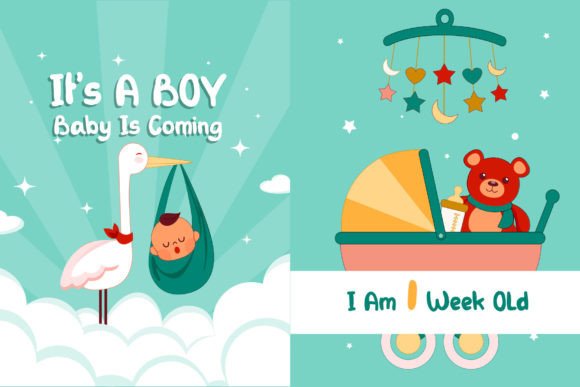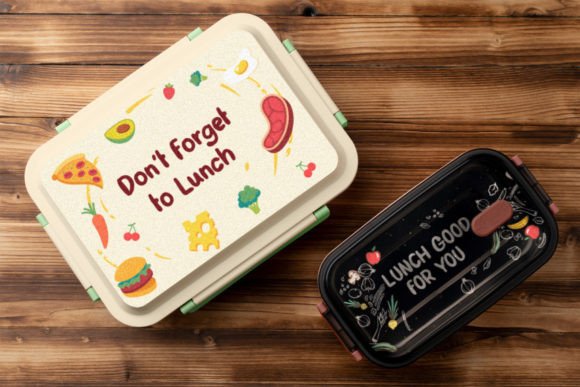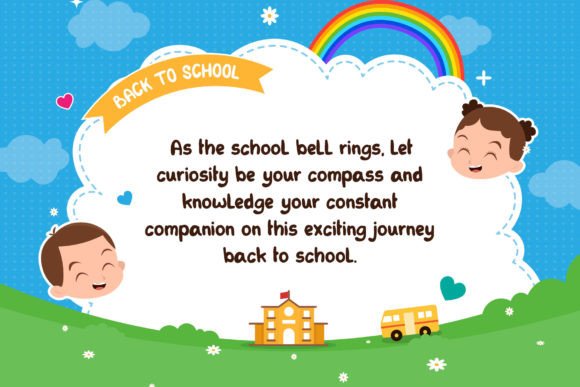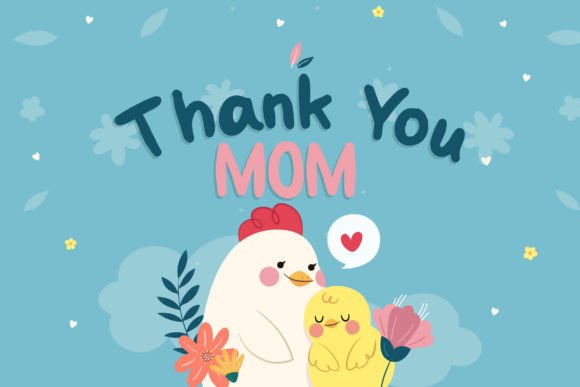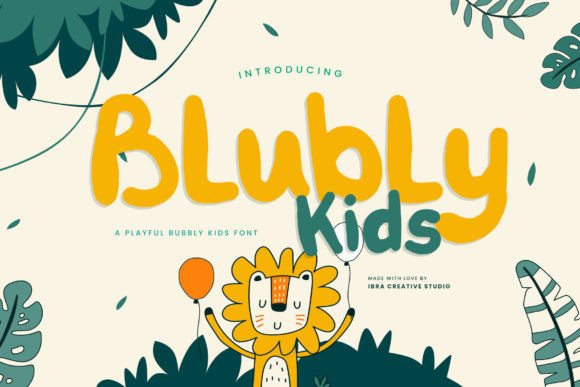
Introducing Blubly Kids Font: The Ultimate Playful Typeface for Children’s Projects
Are you a designer, crafter, or educator looking for a font that captures the essence of childhood? Look no further than Blubly Kids Font, a delightful and exuberant typeface that embodies the playful and carefree spirit of kids. With its rounded edges, whimsical details, and buoyant energy, this font is perfect for adding a splash of fun to children’s projects, from storybooks to playful signage.
The Characteristics of Blubly Kids Font
Blubly Kids Font is a handcrafted typeface that boasts a range of characteristics that make it uniquely suited for children’s projects. Some of its key features include:
- Rounded Edges: The font’s rounded edges give it a soft, friendly feel that’s perfect for kids’ materials.
- Whimsical Details: Each letter is adorned with playful details that add to the font’s lighthearted and joyful demeanor.
- Buoyant Energy: The font’s letters seem to dance across the page, imbuing projects with a sense of energy and movement.
Why Choose Blubly Kids Font?
So why should you choose Blubly Kids Font for your next project? Here are just a few reasons:
- Perfect for Children’s Projects: The font’s playful design makes it an ideal choice for projects aimed at kids, from storybooks to educational materials.
- Versatile: Blubly Kids Font can be used for a wide range of projects, from digital designs to print materials.
- Easy to Read: Despite its playful design, the font is easy to read, making it perfect for body text as well as headlines.
Using Blubly Kids Font in Your Projects
Blubly Kids Font can add a touch of whimsy and fun to a wide range of projects. Here are a few ideas to get you started:
- Storybooks: Use Blubly Kids Font to create engaging and interactive storybooks that kids will love.
- Playful Signage: Add a splash of fun to your signage with Blubly Kids Font, perfect for kids’ parties, play areas, or educational exhibits.
- Educational Materials: Use the font to create engaging and interactive educational materials, such as worksheets, activity sheets, or educational posters.
Tips for Pairing Blubly Kids Font with Other Fonts
Blubly Kids Font can be paired with a range of other fonts to create visually appealing and engaging designs. Here are a few tips:
- Pair with a Serif Font: Pairing Blubly Kids Font with a serif font can add a touch of sophistication and elegance to your design.
- Pair with a Script Font: Pairing Blubly Kids Font with a script font can add a touch of whimsy and playfulness to your design.
Blubly Kids Font is a delightful and exuberant typeface that’s perfect for adding a splash of fun to children’s projects. With its rounded edges, whimsical details, and buoyant energy, this font is sure to capture the essence of childhood and bring joy to kids and adults alike. Whether you’re a designer, crafter, or educator, Blubly Kids Font is a great choice for any project aimed at kids.